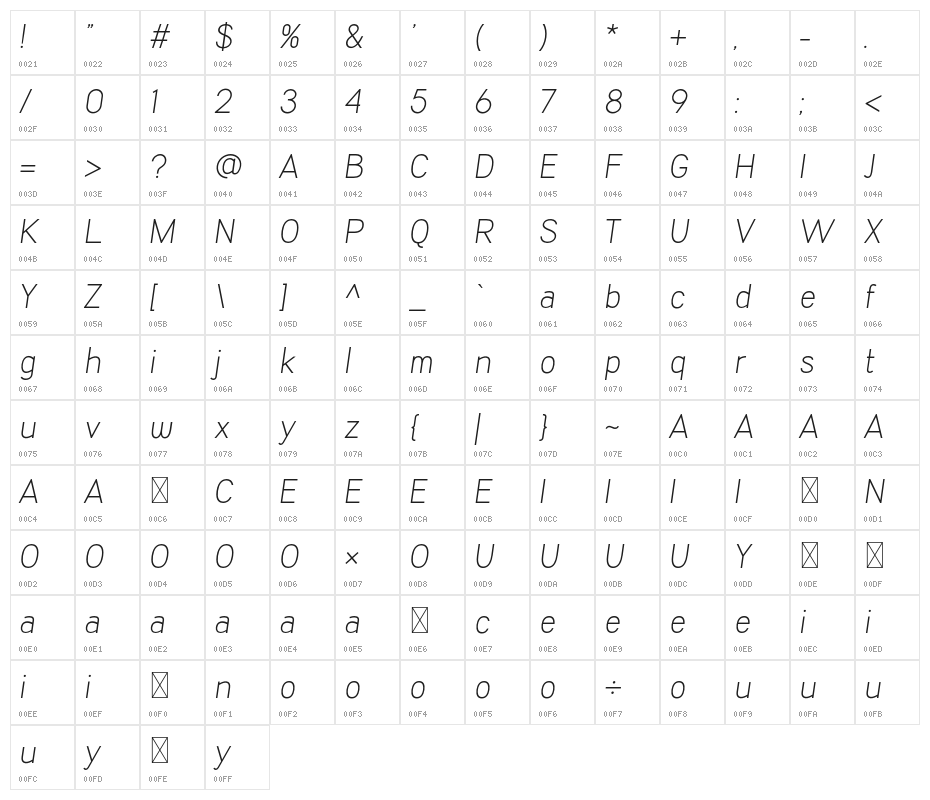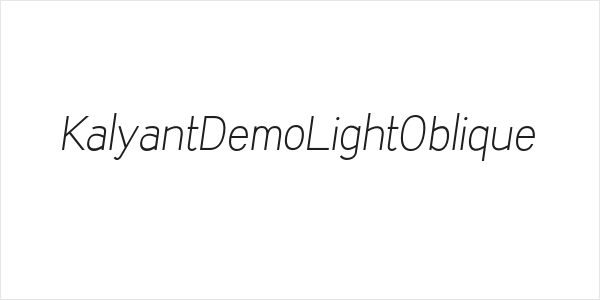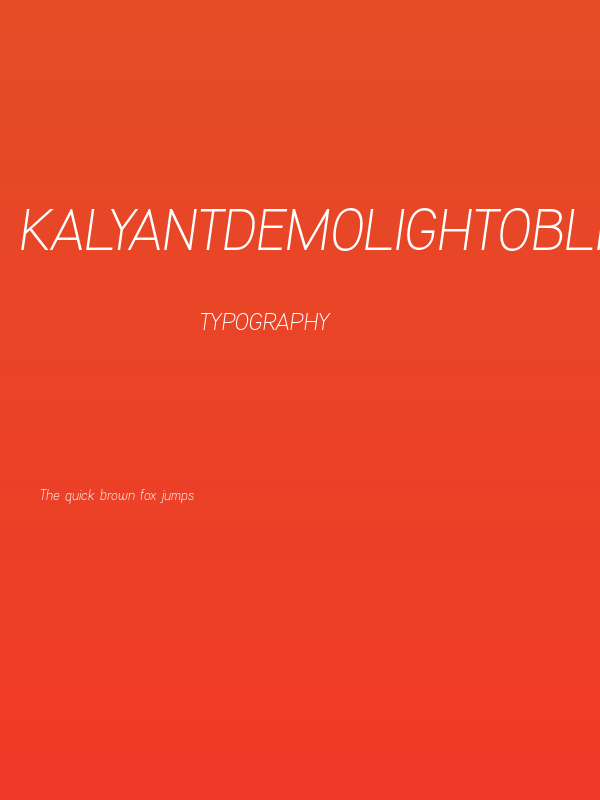
KalyantDemoLightOblique Font
KalyantDemoLightOblique Description
This font features a sleek, modern design with a light weight and oblique style. The characters are elegantly slanted, giving a sense of motion and fluidity. The strokes are consistent and smooth, with a low contrast between thick and thin lines, which enhances readability. The overall appearance is clean and minimalistic, making it suitable for contemporary design projects. The spacing between characters is normal, ensuring clarity and legibility across various applications. This font's refined style makes it ideal for projects that require a touch of sophistication and modernity.
| Proposed Projects | Ideal for modern branding, editorial design, digital interfaces, and minimalist posters. |